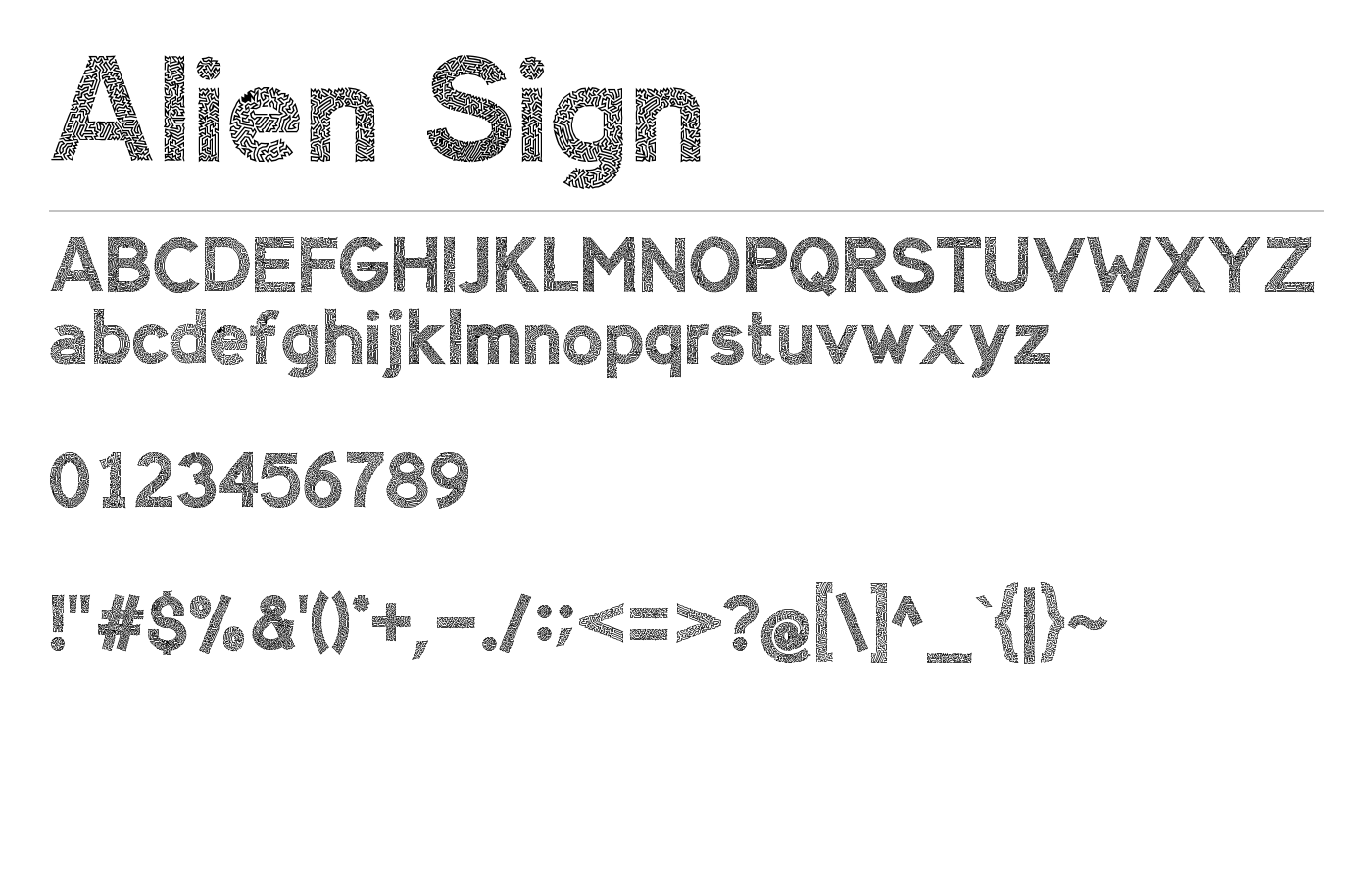
Alien Sign Font is a distinctive sans serif typeface featuring a textured, maze-like pattern within its bold, wide letterforms. Its playful and futuristic style makes it ideal for creative branding, sci-fi designs, and eye-catching headlines that seek a modern, otherworldly vibe. This font works best where a unique and energetic look is desired, such as posters, packaging, and digital media.
Alien Sign Font
About Alien Sign Font